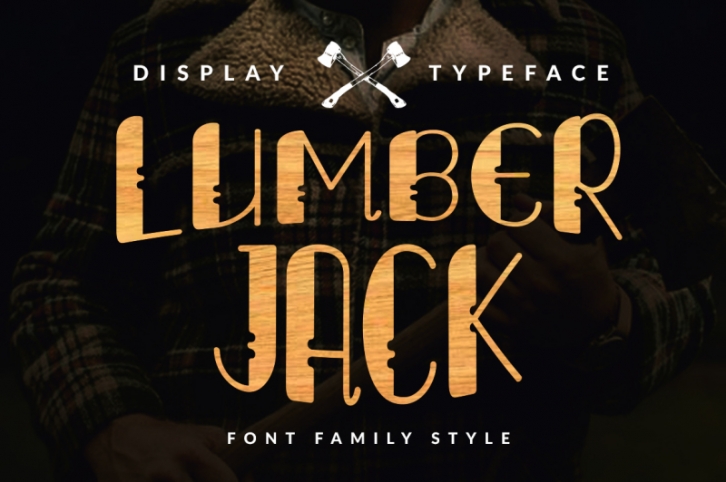
Lumberjack is multi-purpose and ready to make a statement by adding an elegant and unique talent for the next design project. Lumberjack can be used for various purposes such as posters, logos, t-shirts, signage, businnes card, magazines, book covers, wedding invitations, greeting cards etc. Lumberjack also includes glyphs, punctuation, numbers, and multilingual.